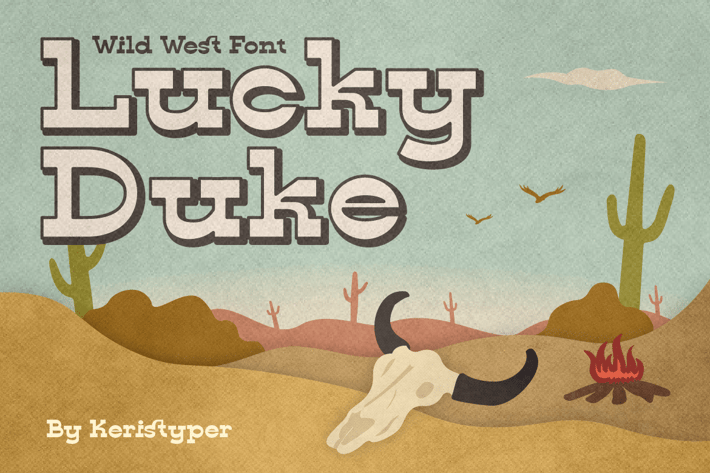
Lucky Duke Font
Introducing Lucky Duke font a western display typeface, inspired by cowboy wild west styles. This font is good for logo design, Social media, Movie Titles, Books Titles, short text even long text letters, and good for your secondary text font with sans or serif.
Standard Uppercase & Lowercase
Multilingual : ä ö ü Ä Ö Ü ß ¿ ¡
Alternate & Ligature